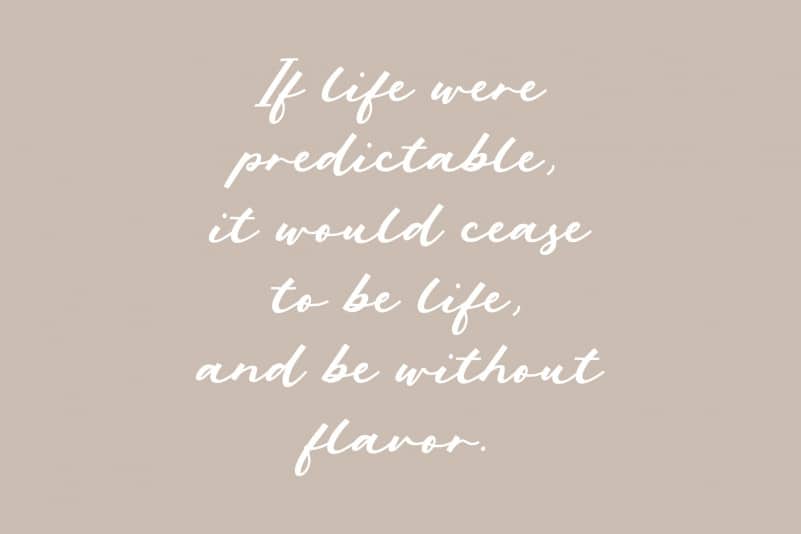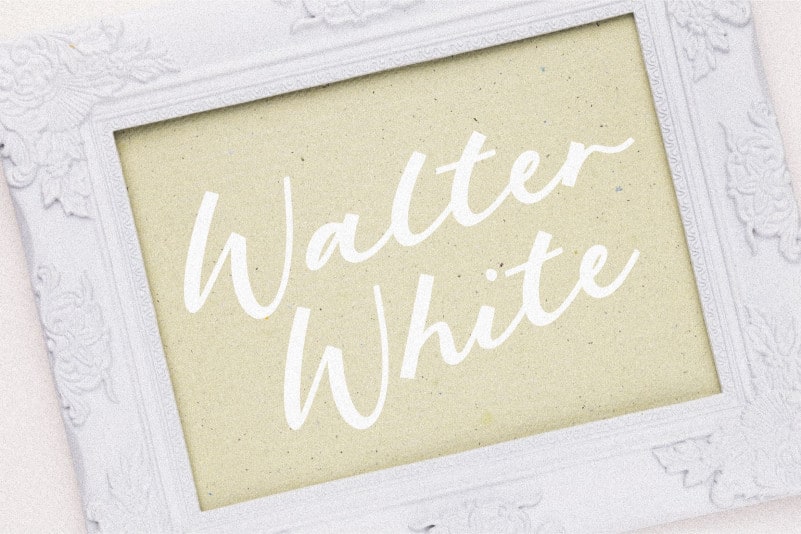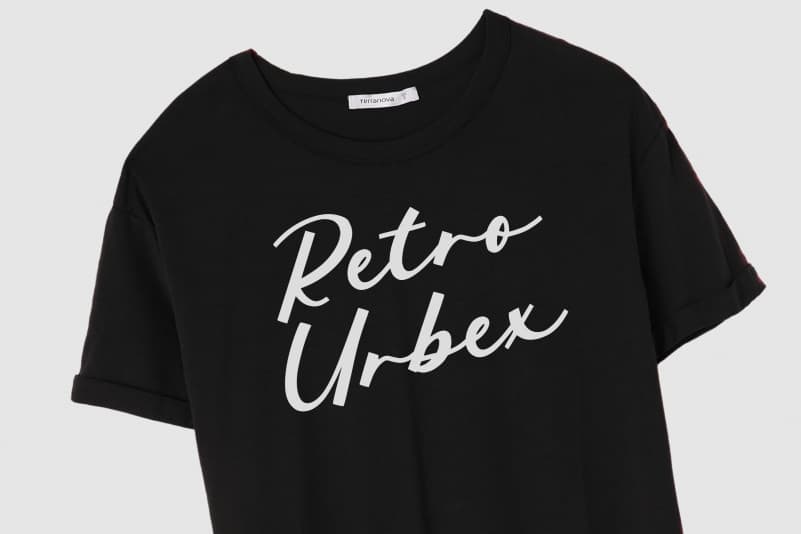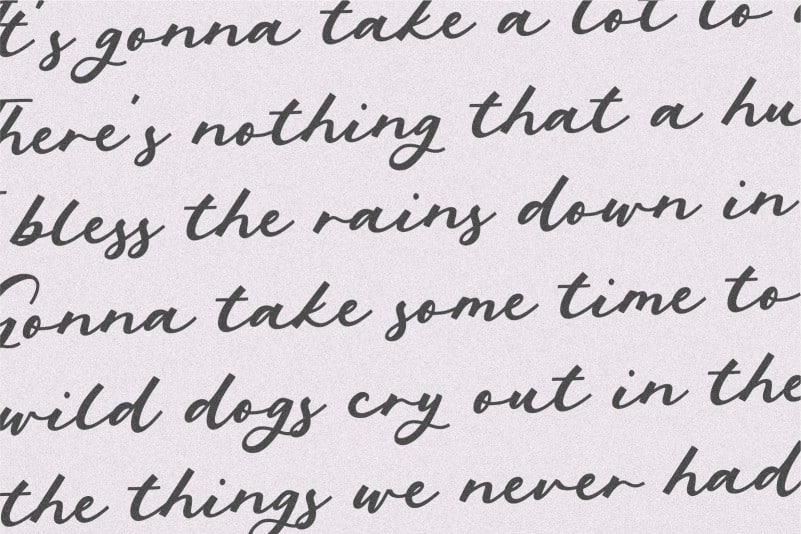
Phantom Rider Modern Handwritten Font
Proudly Present, Phantom Rider Modern Handwritten Font.
Phantom Rider is a Modern Handwritten Font.
It is perfect for product packaging, branding project, megazine, social media, wedding, or just used to express words above the background.